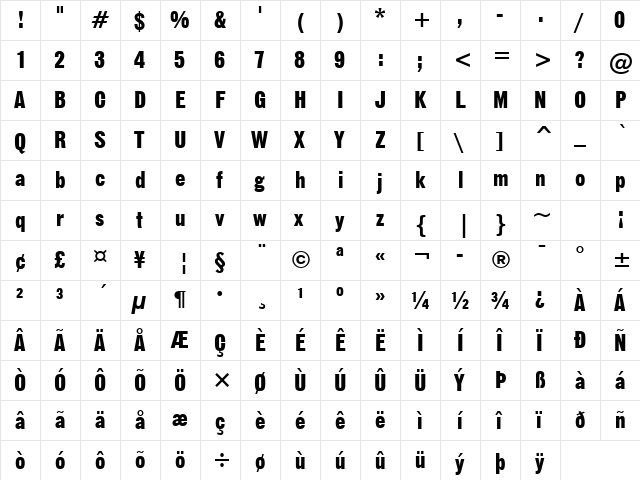
GothicNo13 BT Regular
Design Context for GothicNo13 BT Typeface
GothicNo13 BT has the quiet confidence of well-executed sans-serif typography: versatile, unobtrusive, and dependable at any size.
Font Pairing: Works well alongside a characterful serif or display font that can carry the expressive load while GothicNo13 BT handles the functional copy.
Pro Tip: Pair GothicNo13 BT with a display or serif font for headlines — its neutral character makes it an excellent supporting player in complex typographic systems.